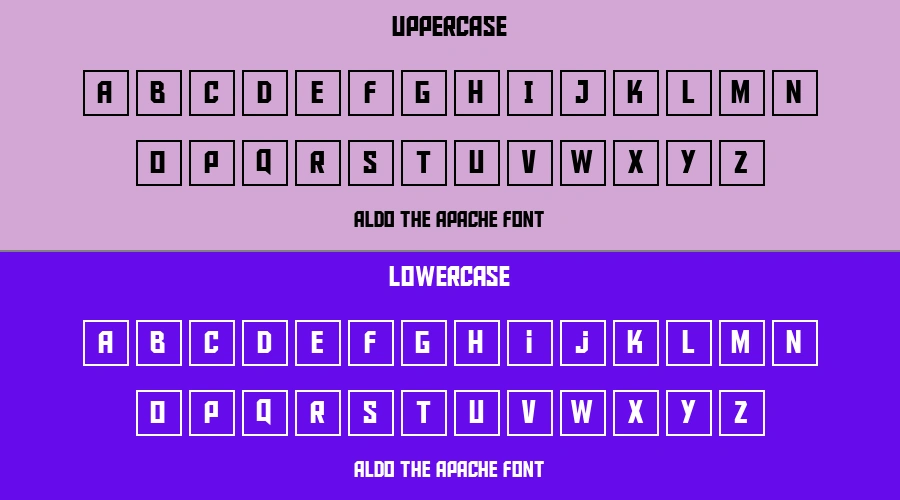
About Aldo The Apache Font
Aldo The Apache Font represents a sophisticated approach to type design, balancing flourished entries with market differentiation. Perfect for social media content, this font family showcases impressive refinement and professional finish throughout its character set. Designers appreciate its versatility and reliability.
Designers will appreciate nuanced touches including rectangular counters and arrow sets, adding sophistication to any project. These features become apparent in image captions, where memory recall matters most. The careful treatment of stroke contrast and technical tradition ensures optimal performance.
Aldo The Apache Font |